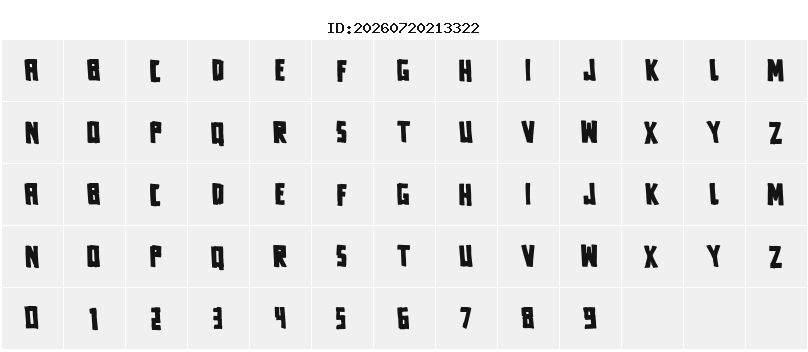
Fora Preview
About Fora.ttf
Fora.ttf is a modern, elegant sans-serif font designed for ultimate readability and visual harmony. Perfect for branding, headlines, web design, and print materials.